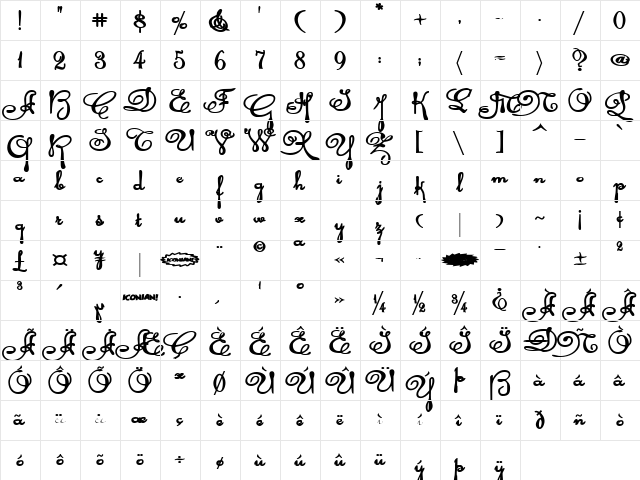
Rhalina Bold Expanded Bold Expanded
Design Context for Rhalina Bold Expanded Typeface
Rhalina Bold Expanded is a composed and adaptable typeface that performs quietly and consistently across a wide range of design contexts. The heavy weight commands attention and anchors typographic hierarchies.